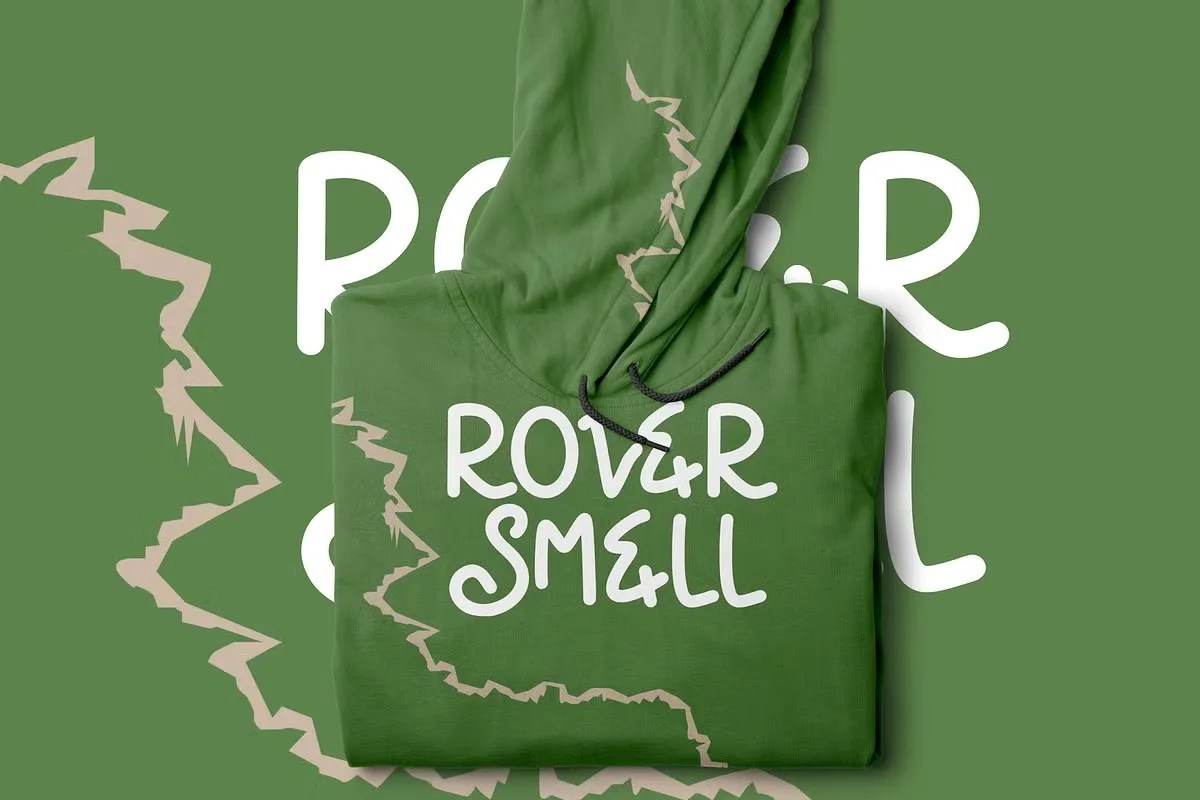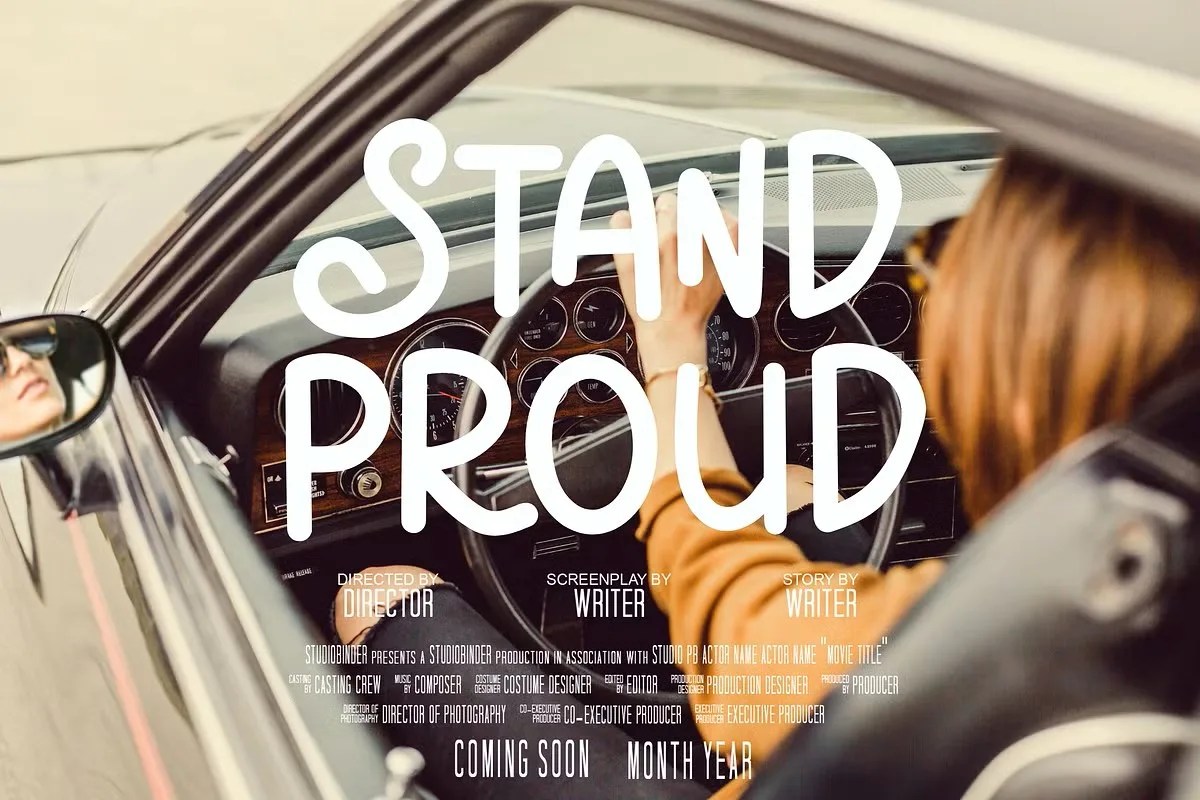
Swirly Note by Dm Studio. This is a charming and casual handwritten script font that captures the imperfect beauty of real penmanship. The font features playful swirls and natural-looking strokes. This design gives your text a friendly and completely approachable feel. Swirly Note is perfect for designs that need to feel authentic, as if you wrote them yourself.
This font excels in projects that need a warm, personal feel. Specifically, it is a wonderful choice for creating digital planner pages or journal templates. It adds an authentic touch to personal notes and inspirational quotes for social media. Furthermore, this handwritten script font is perfect for the crafting community. Crafters can use it for vinyl cutting machine projects, personalized labels, or custom gift tags. Its friendly style makes any message feel special and thoughtfully prepared.
• Casual handwritten script style
• Features decorative swirls and natural strokes
• Ideal for quotes, crafts, and personal notes
• Provides a friendly and authentic feel
Swirly Note